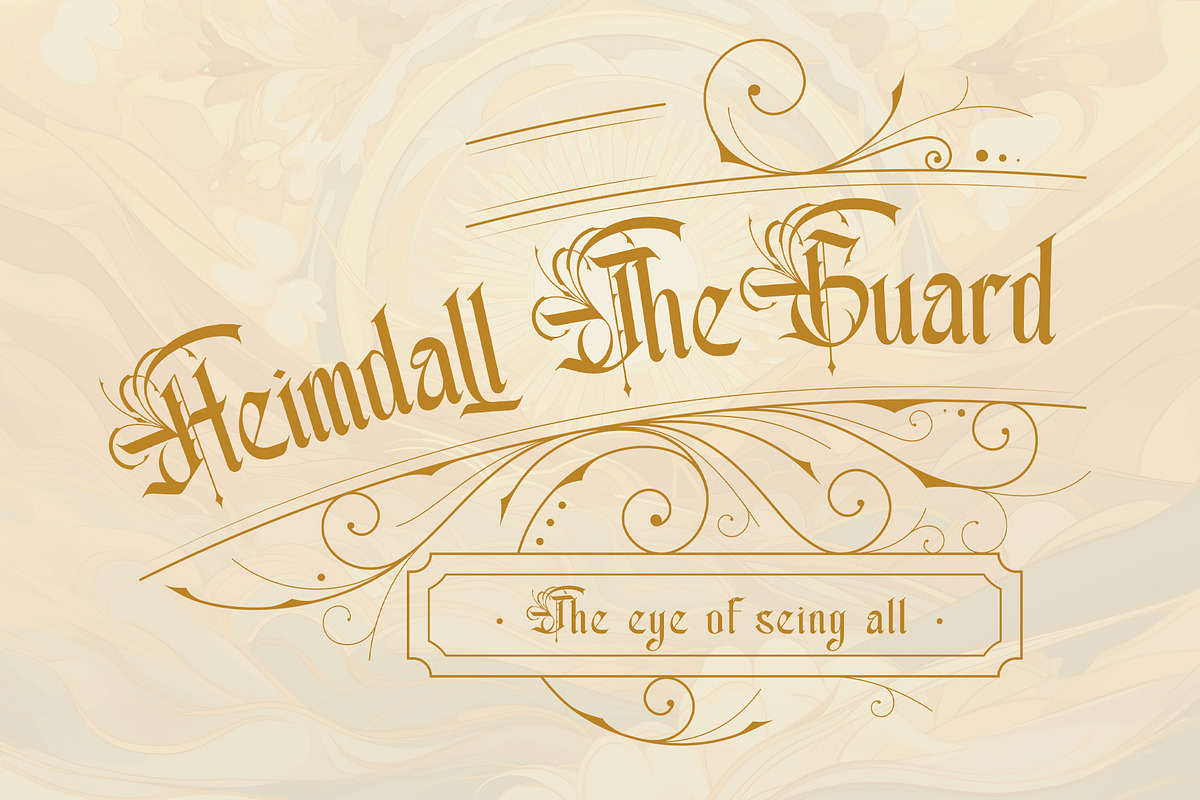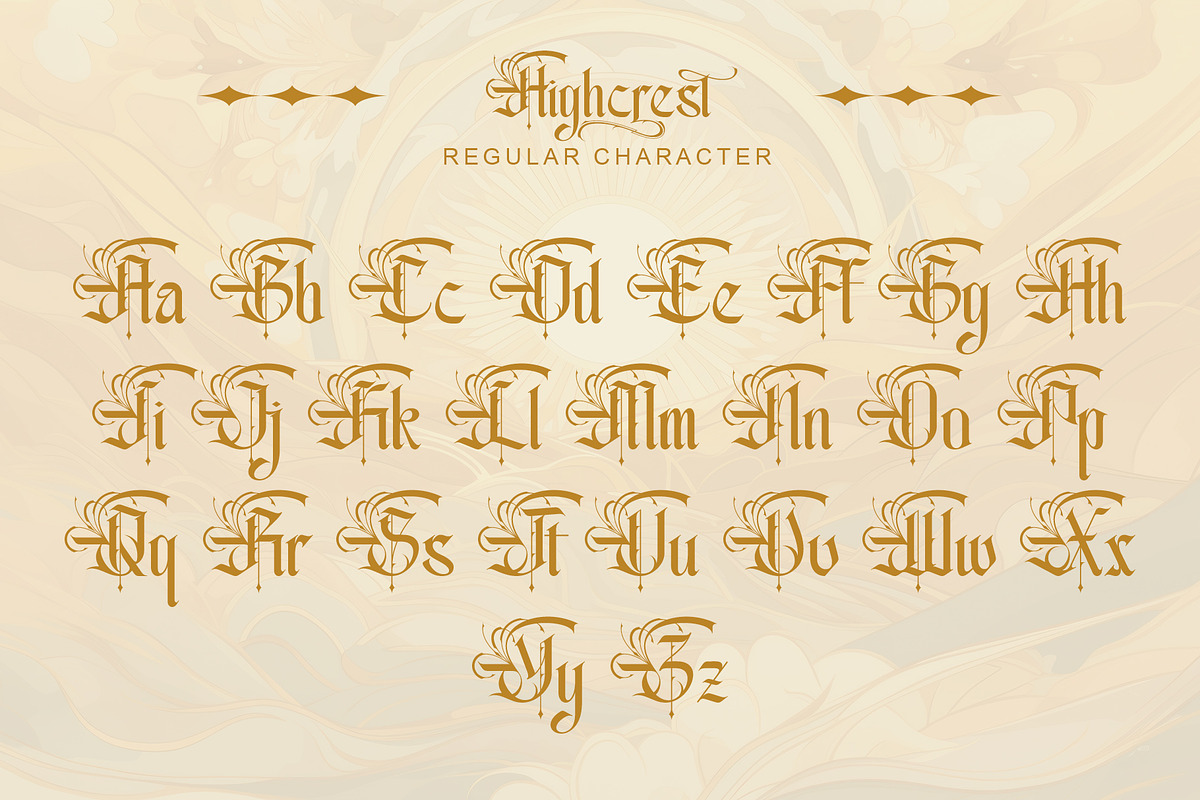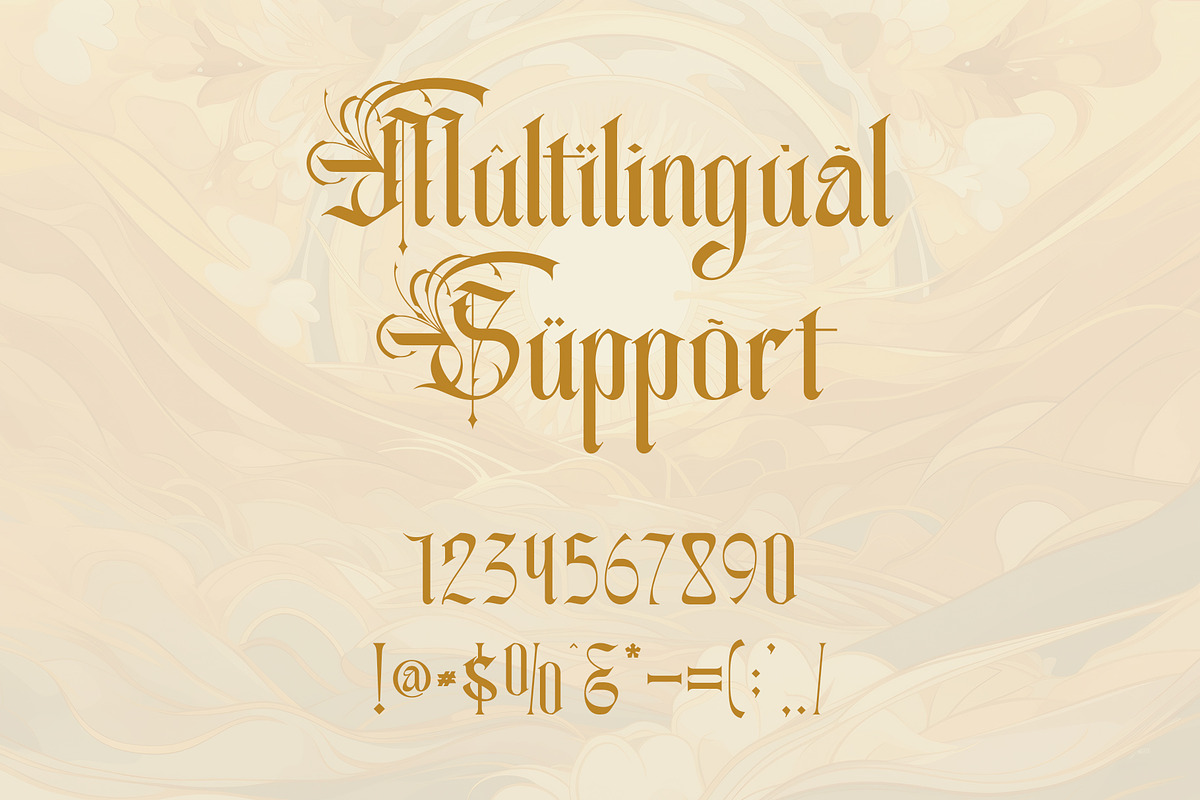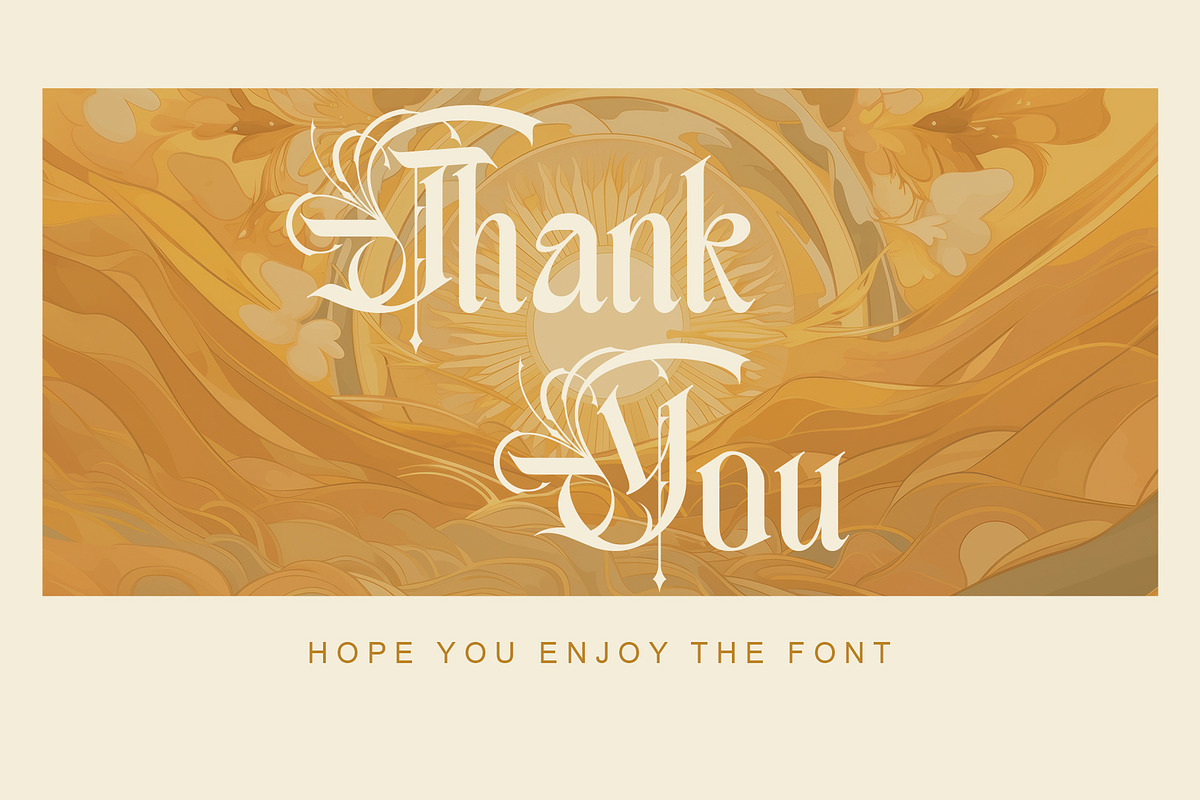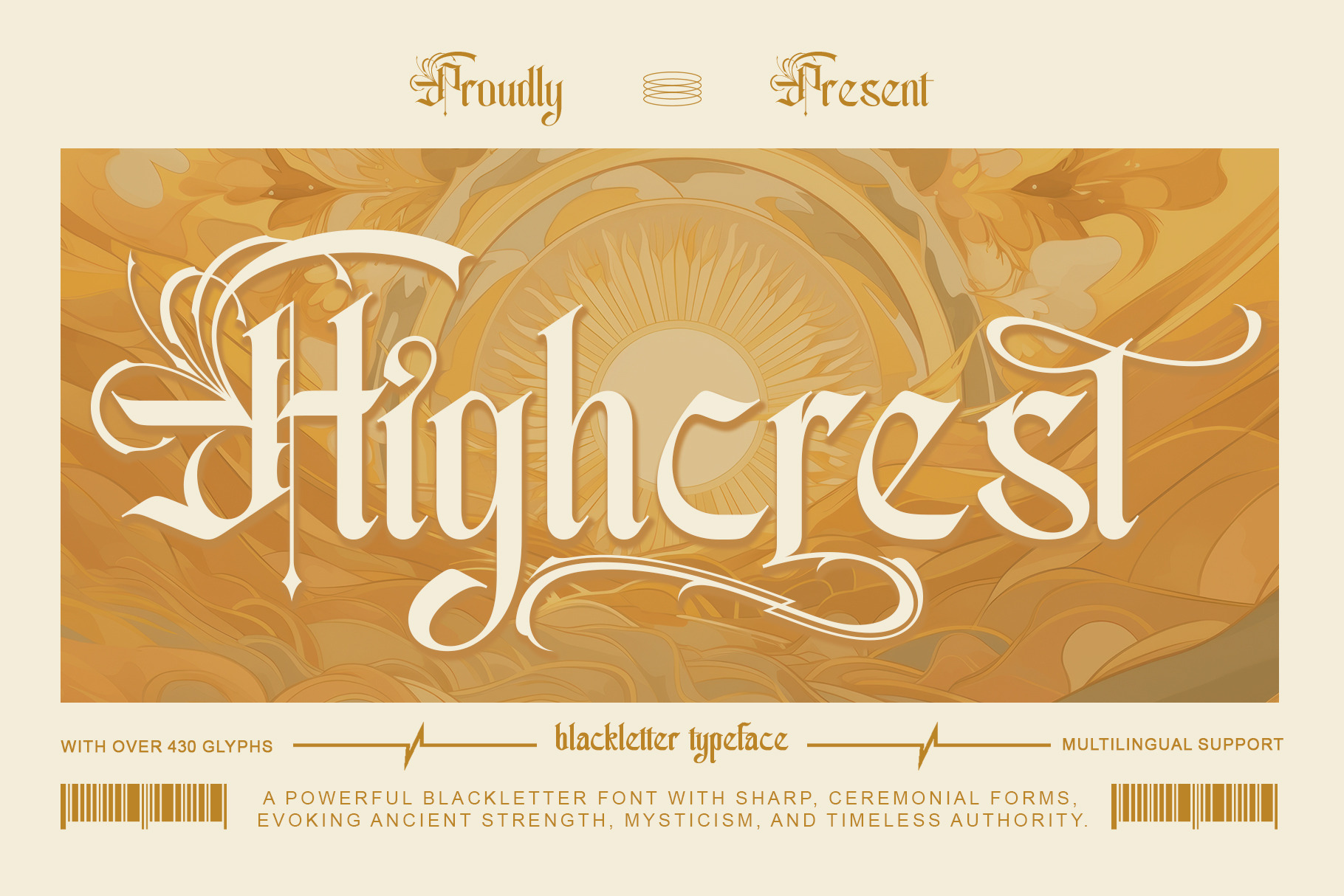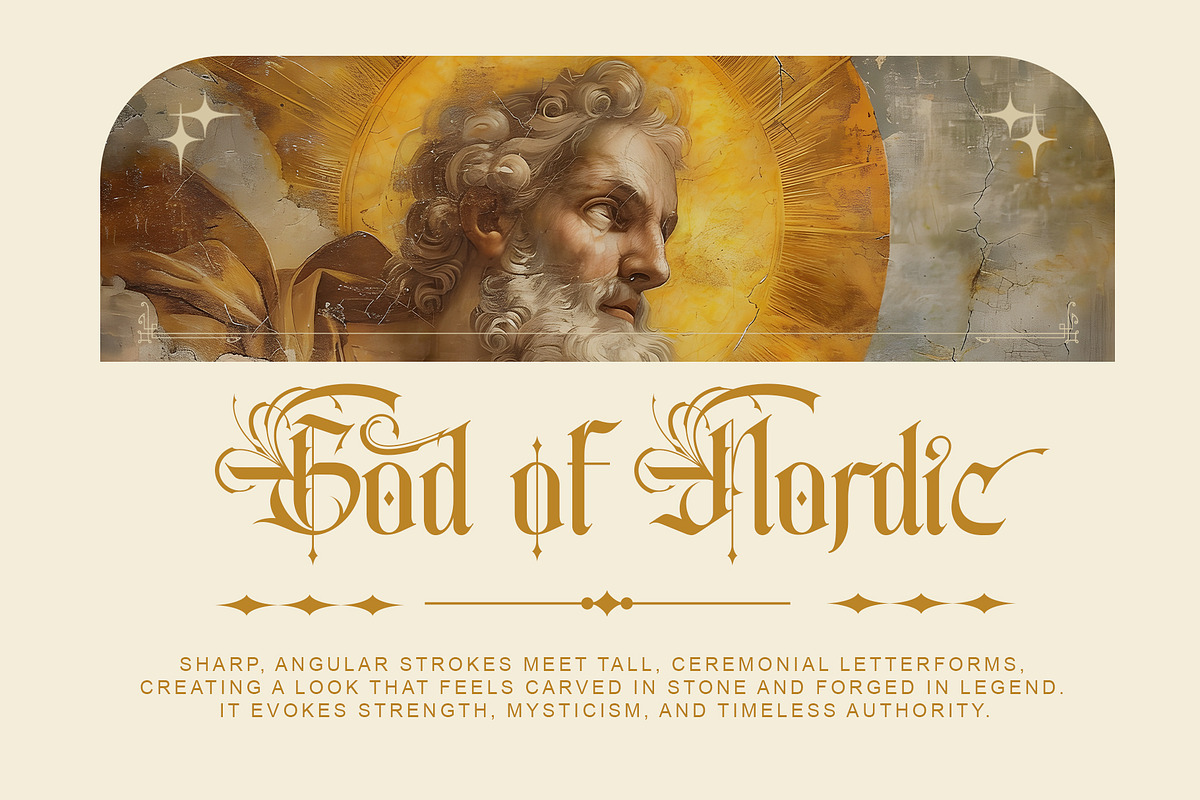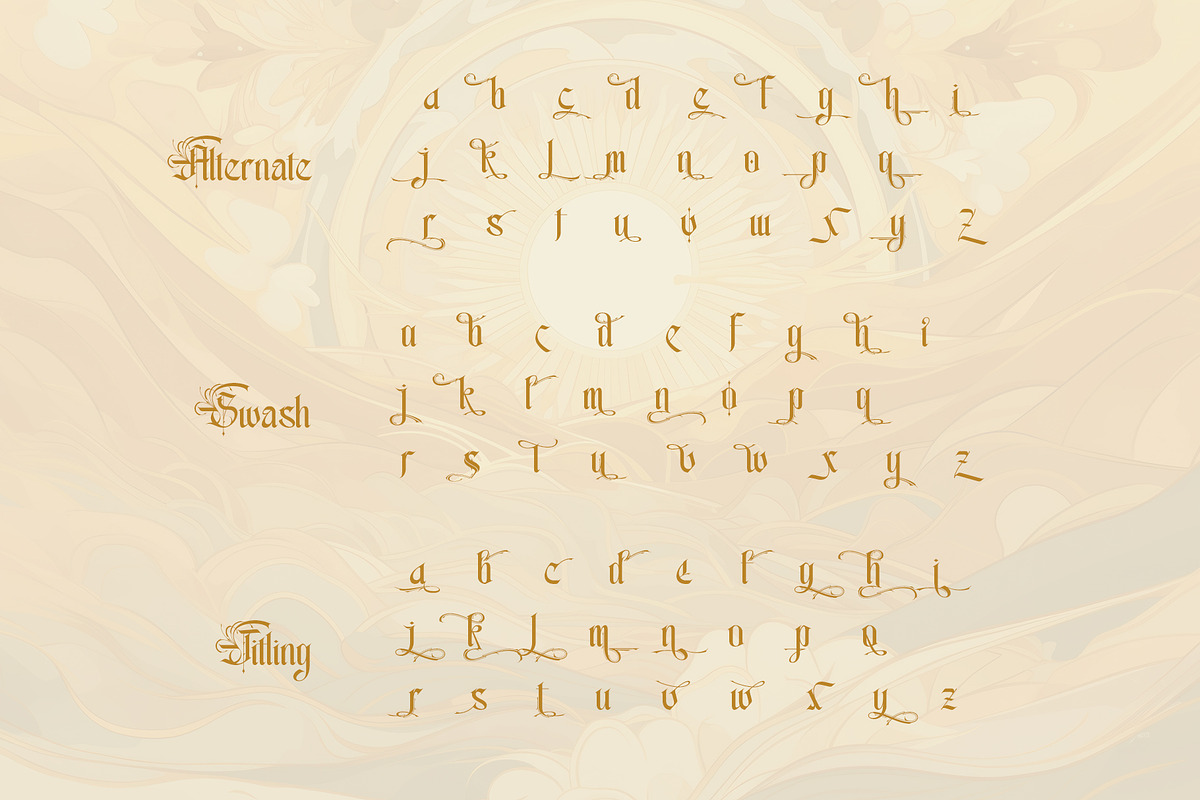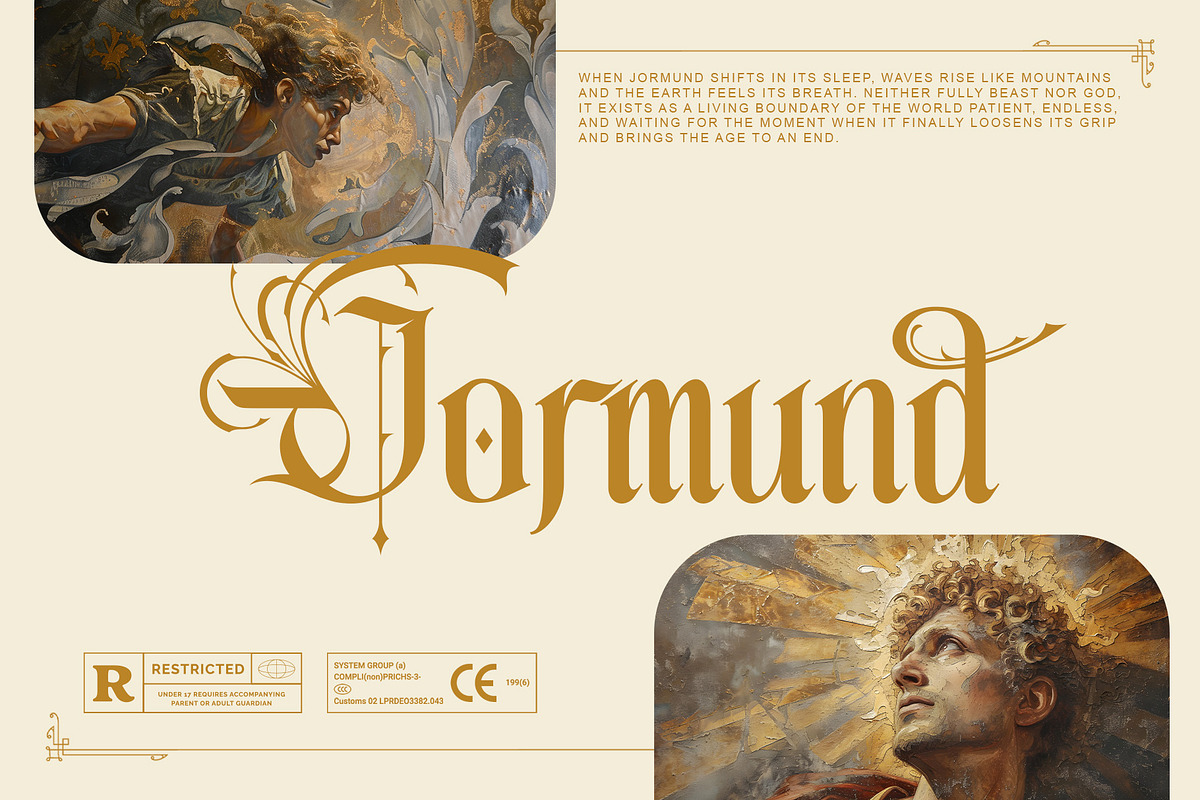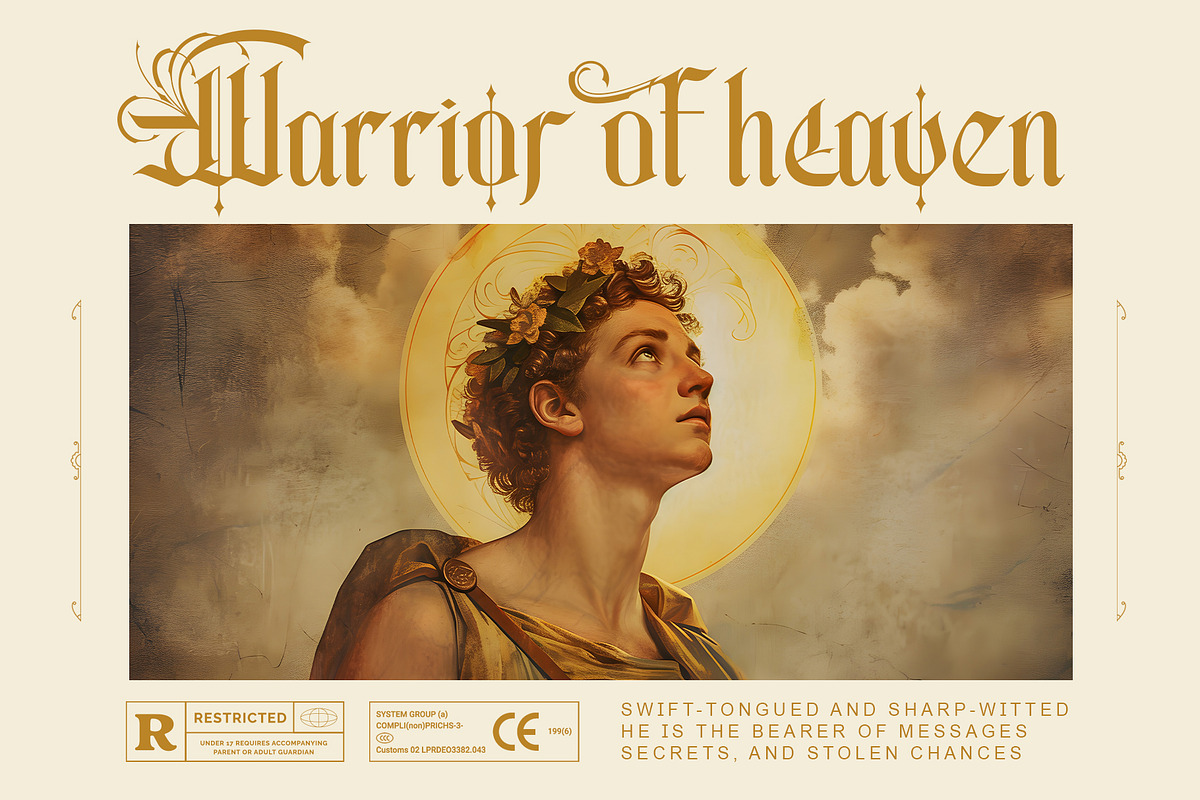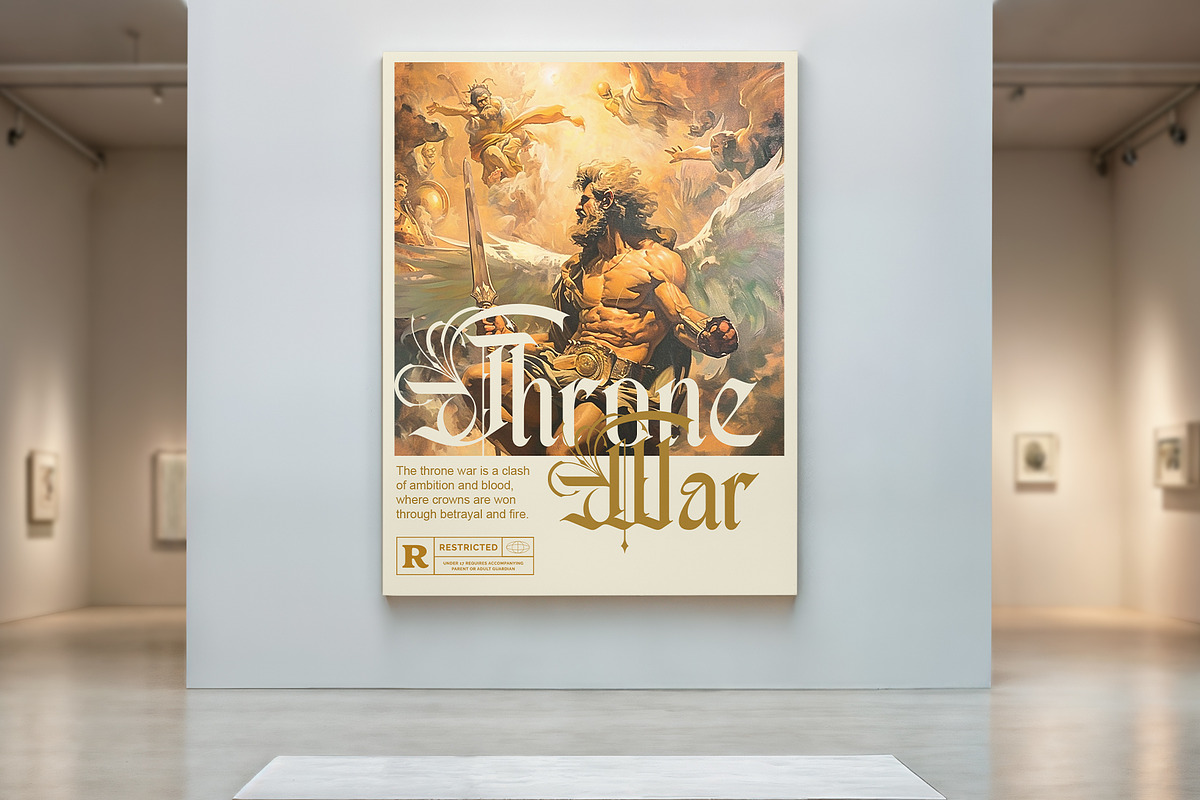
Highcrest Elegant Blackletter Font
Highcrest rises from the legacy of medieval blackletter tradition—sharpened, refined, and reforged for the modern era. Born from cathedral arches and ceremonial script, Highcrest is a powerful blackletter font that embodies ancient authority, mysticism, and timeless strength. Every stroke is deliberate. Every serif stands like a fortress. Every glyph carries the weight of heritage and command.
Designed for bold logos, luxury branding, album covers, editorial headlines, packaging, tattoo lettering, and cinematic titles, Highcrest delivers a dramatic gothic presence while maintaining clarity and structure. Its sharp ceremonial forms and commanding vertical rhythm create typography that feels engraved in stone rather than printed on paper.
With over 430 glyphs and full multilingual support, Highcrest offers expansive creative freedom while preserving the integrity of traditional blackletter aesthetics. This is not decoration—it is a declaration. Where heritage meets dominance, and every word stands crowned in power.
- Support multilingual; ä ö ü Ä Ö Ü ß ¿ ¡
- uppercase letters
- Alternate, swash, titling & Ligature